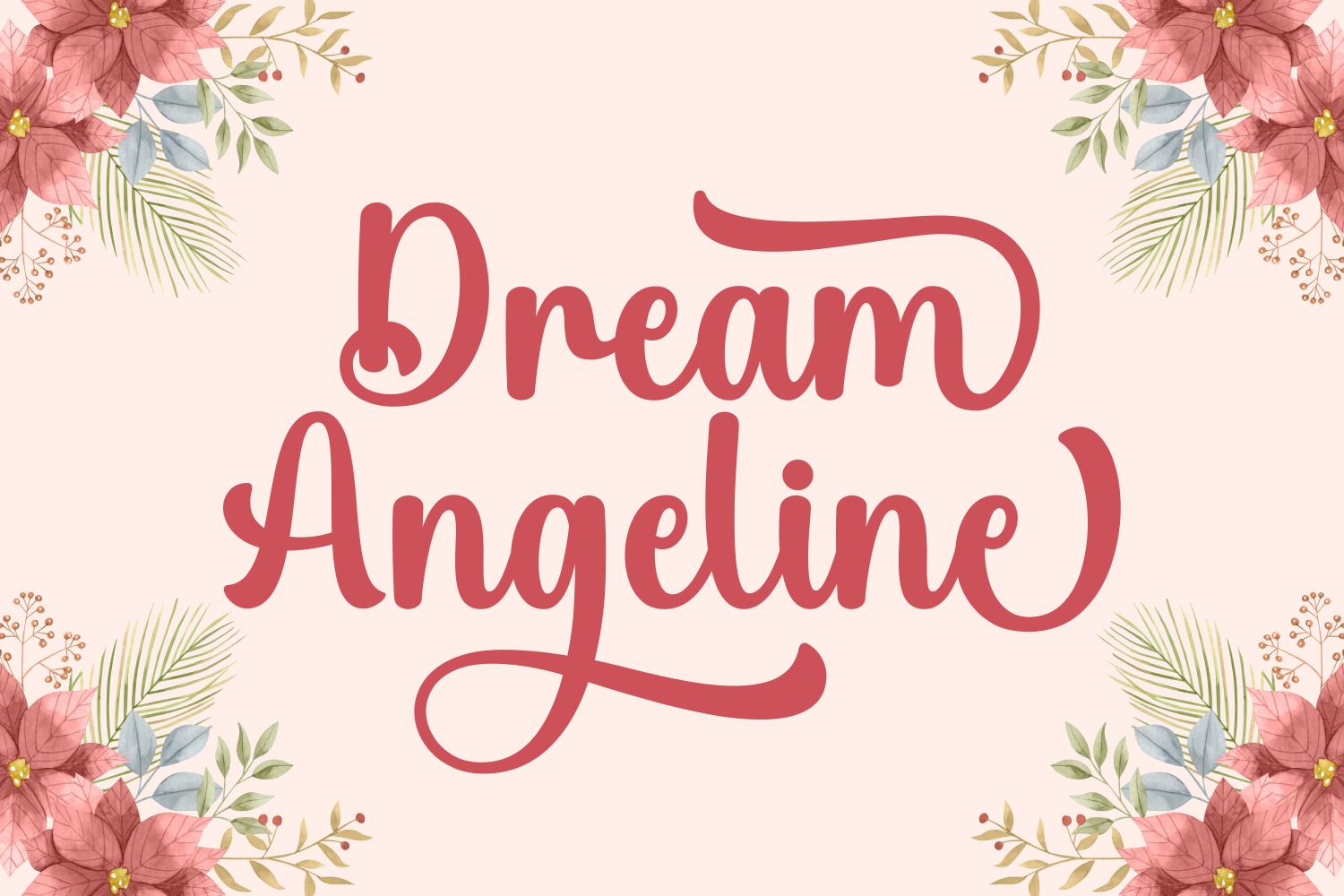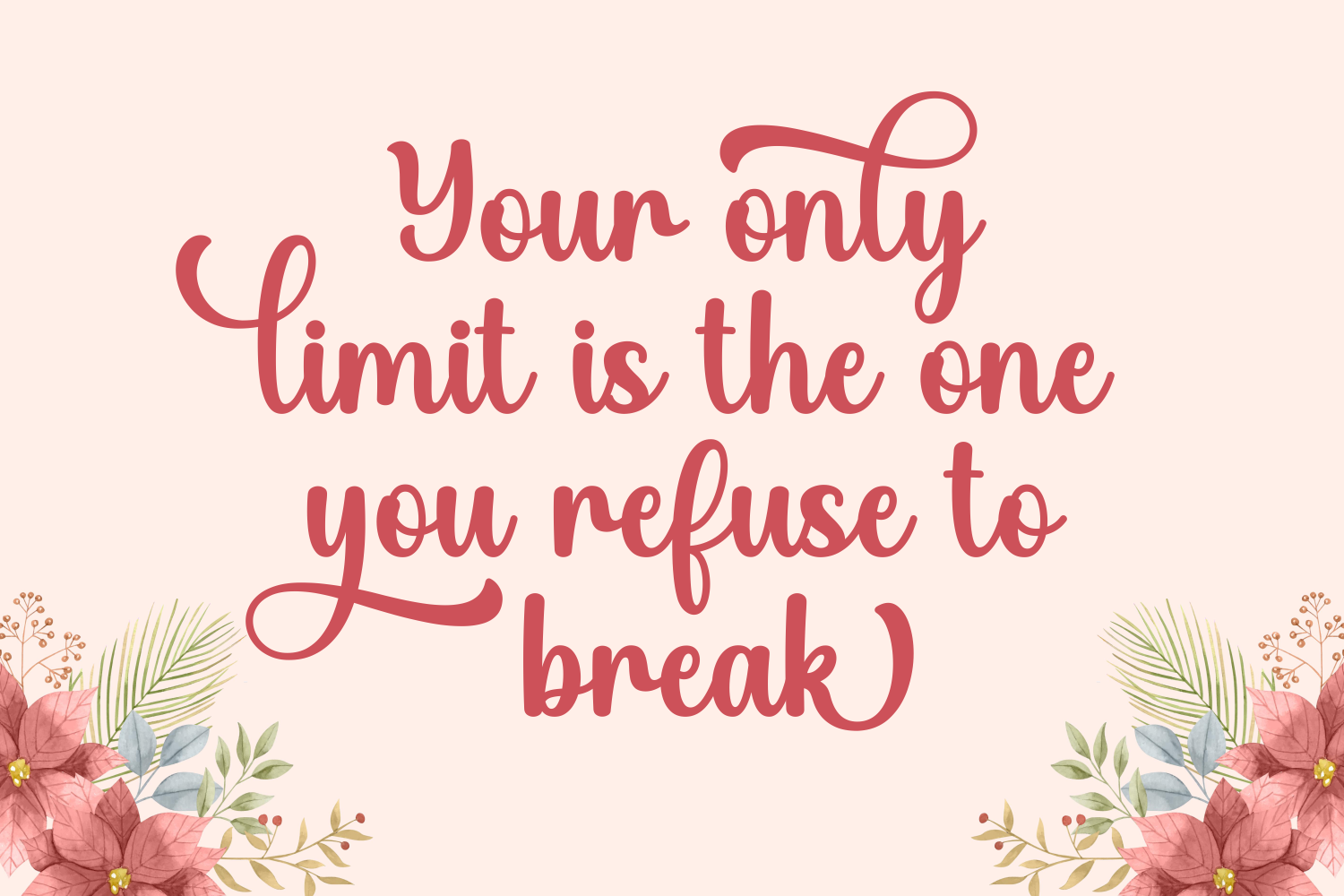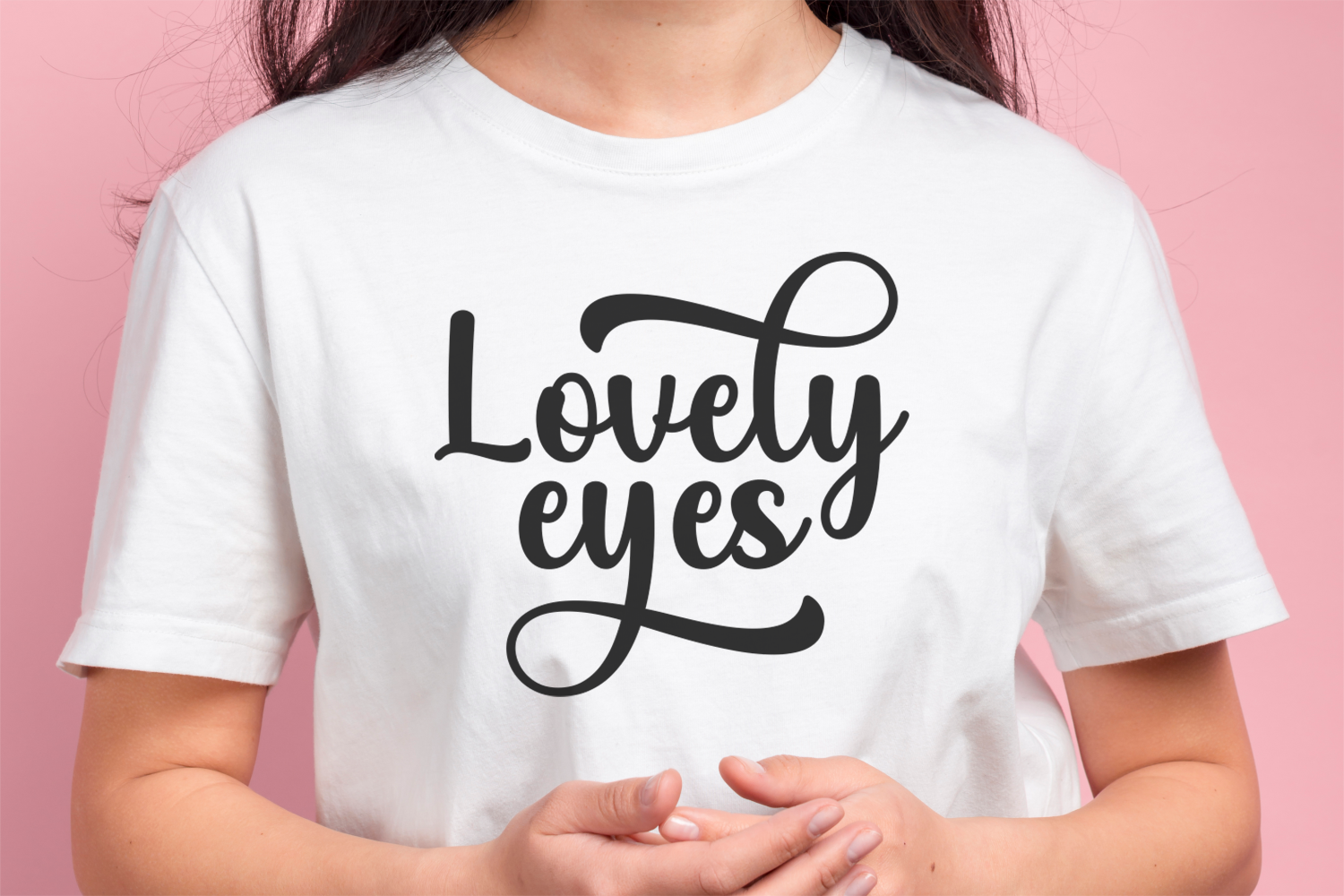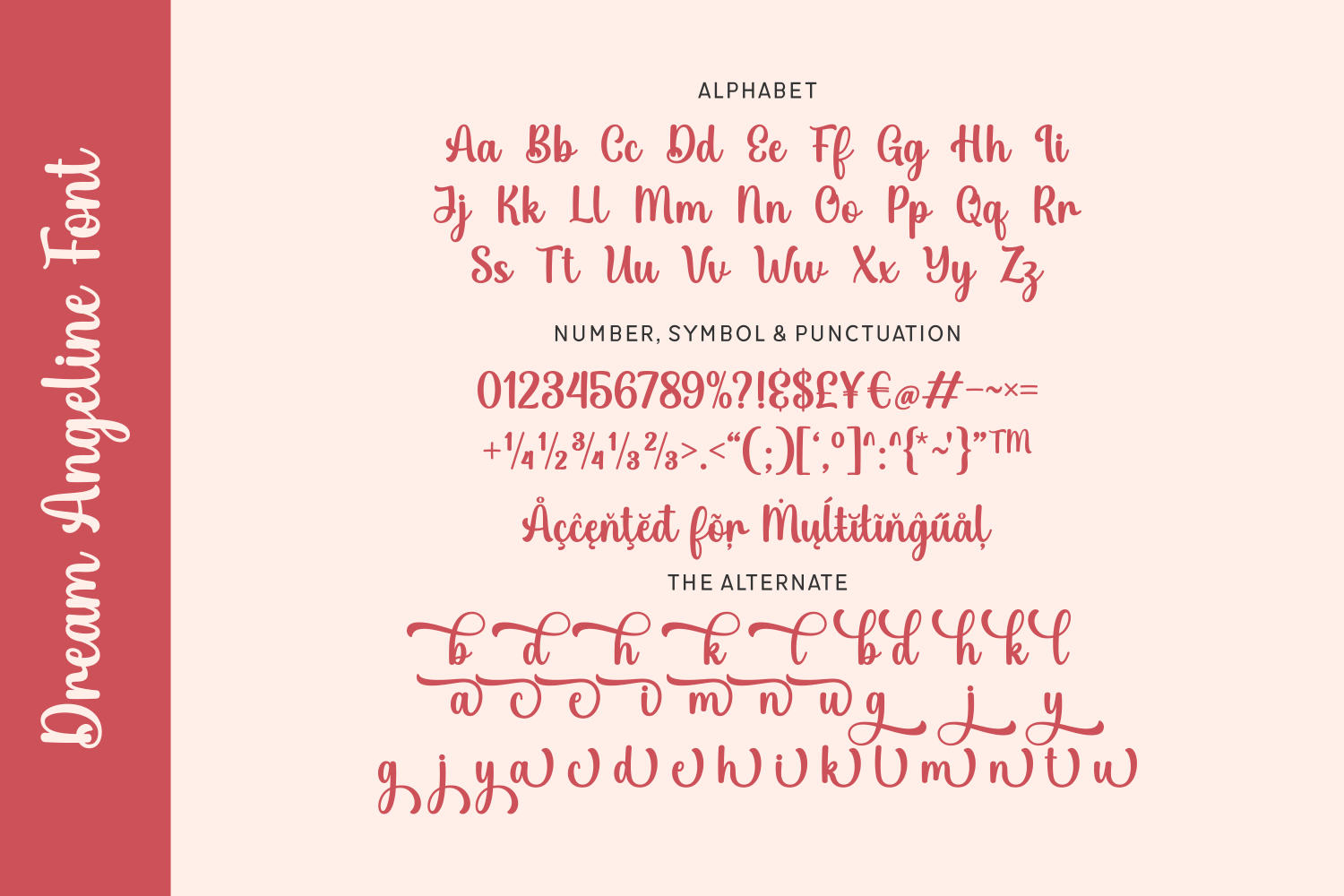
Dream Angeline
Dream Angeline is a charming handwritten script font with whimsical swashes and smooth curves that radiate warmth and creativity. Perfect for greeting cards, logos, wedding invitations, and children's designs, this font adds a touch of dreamy elegance to every project.